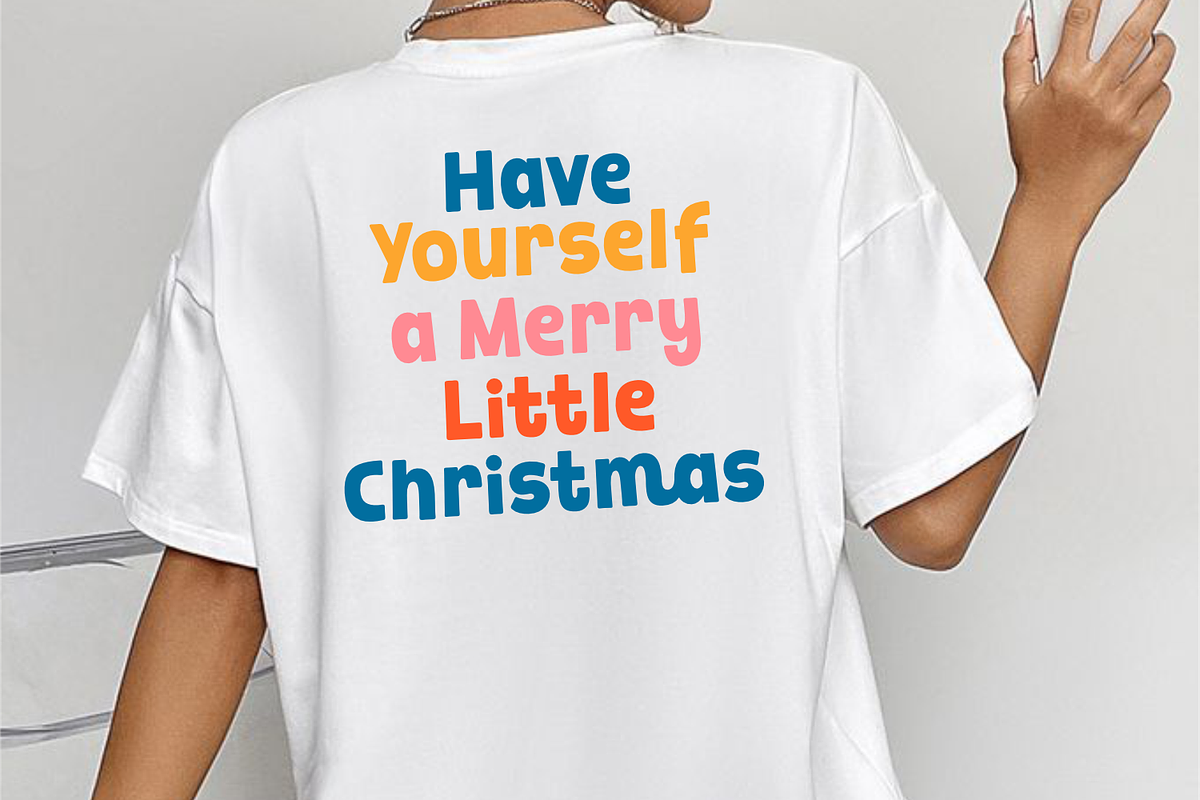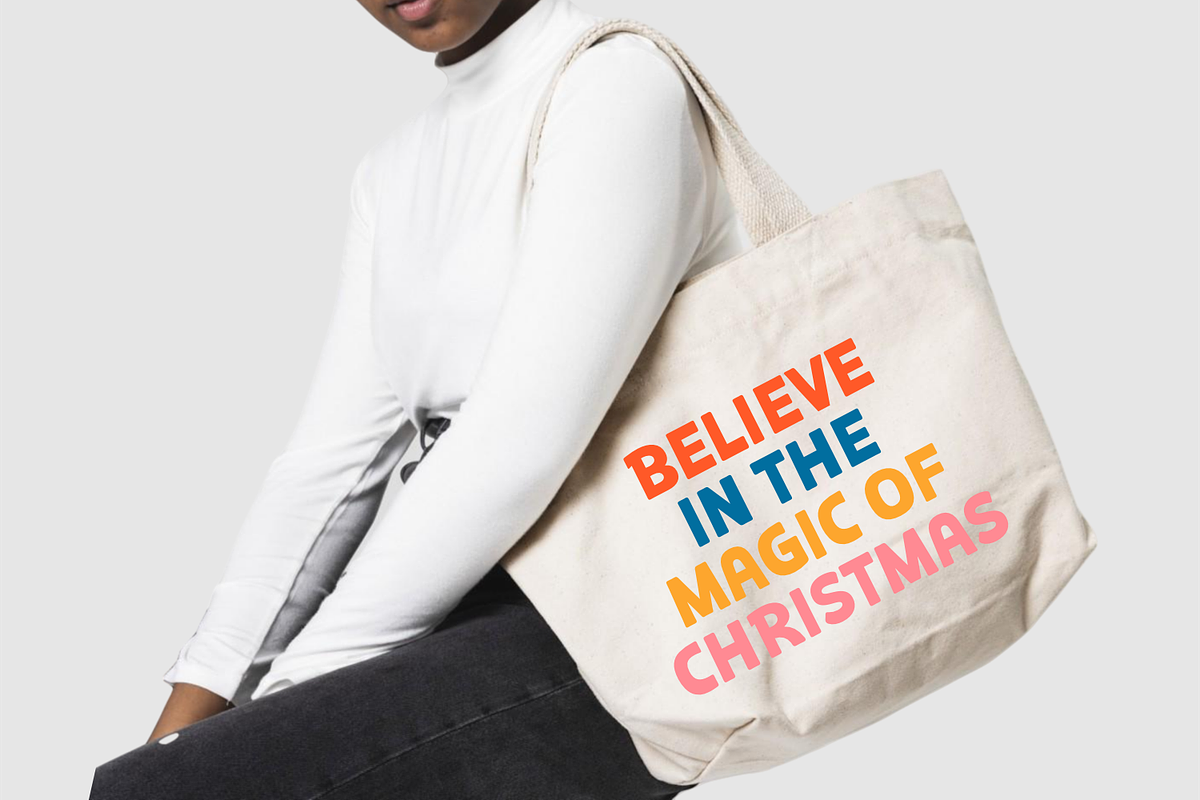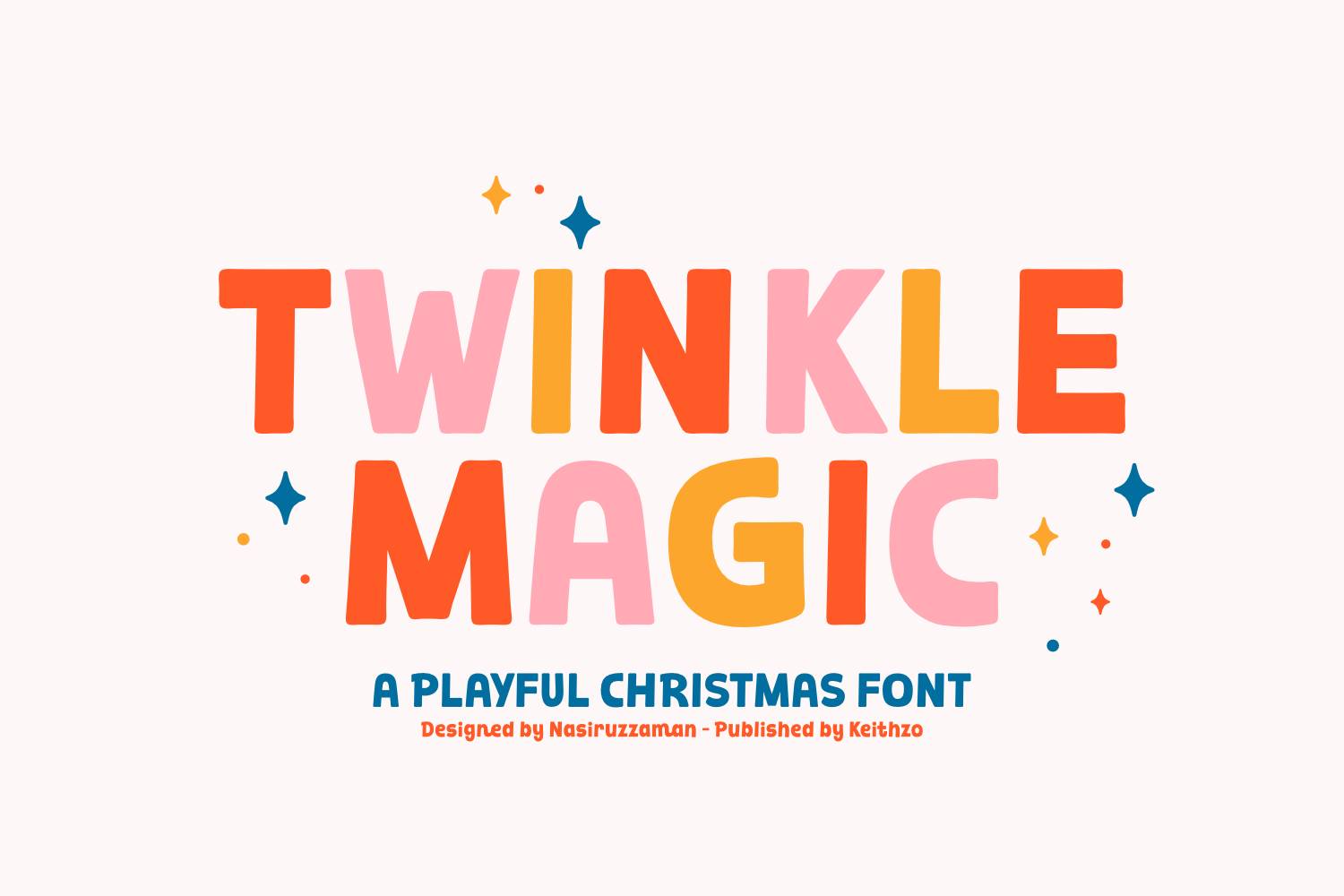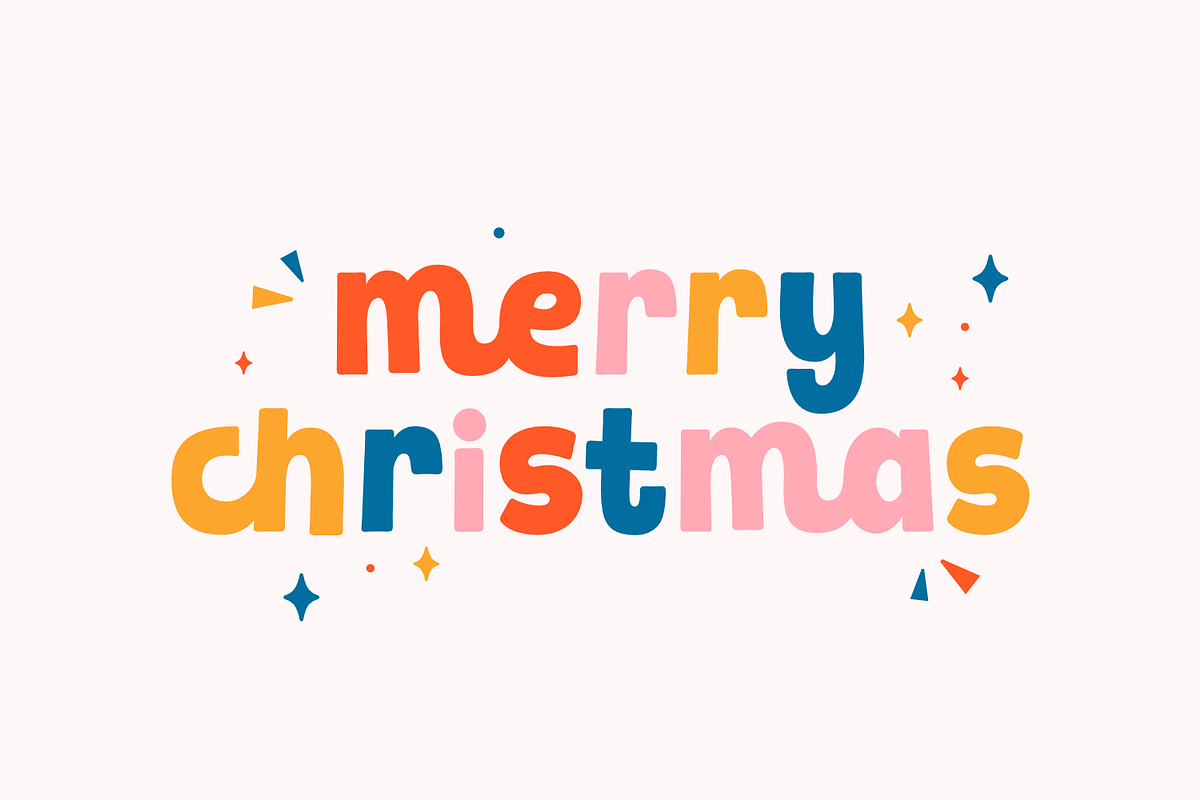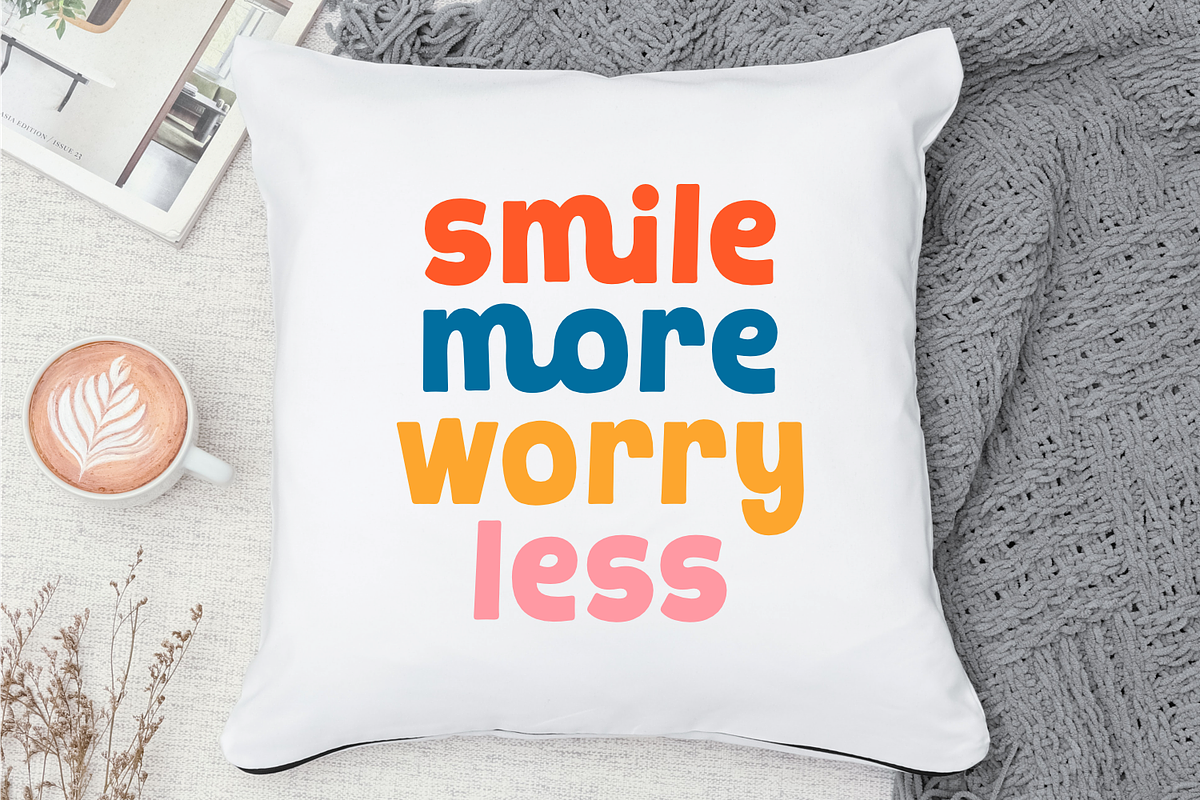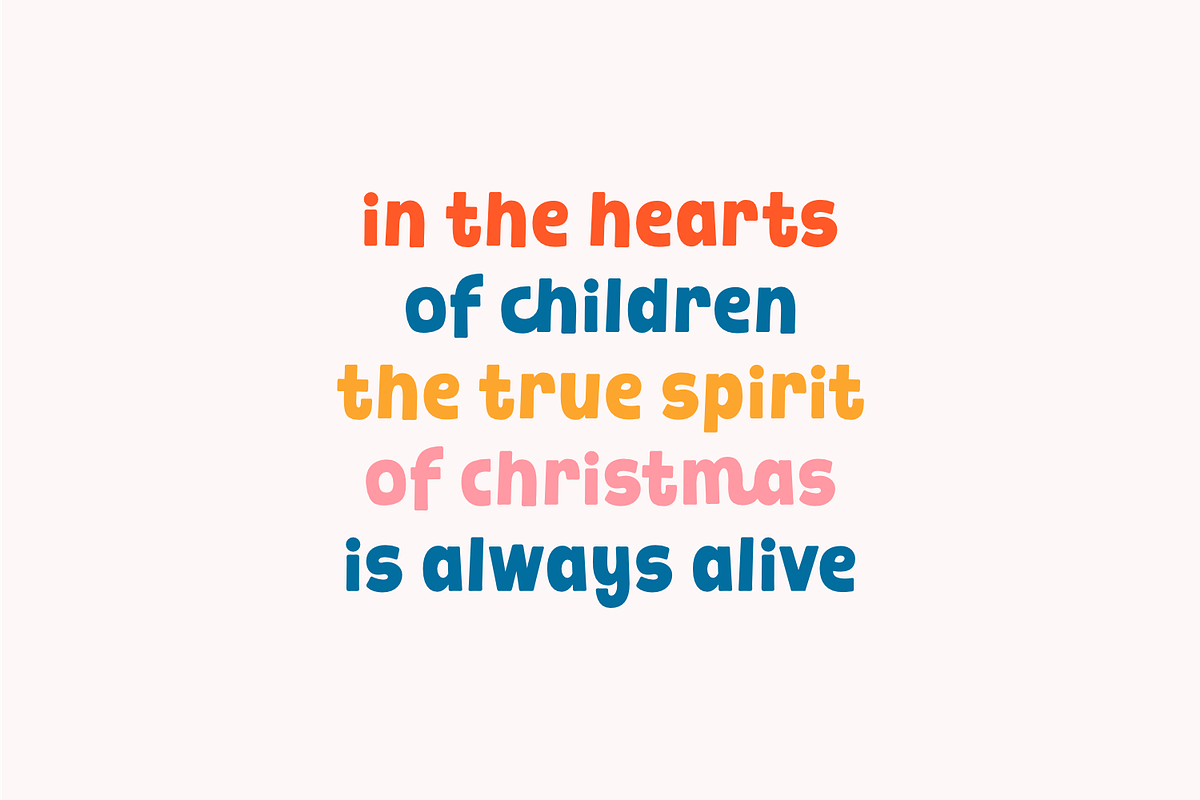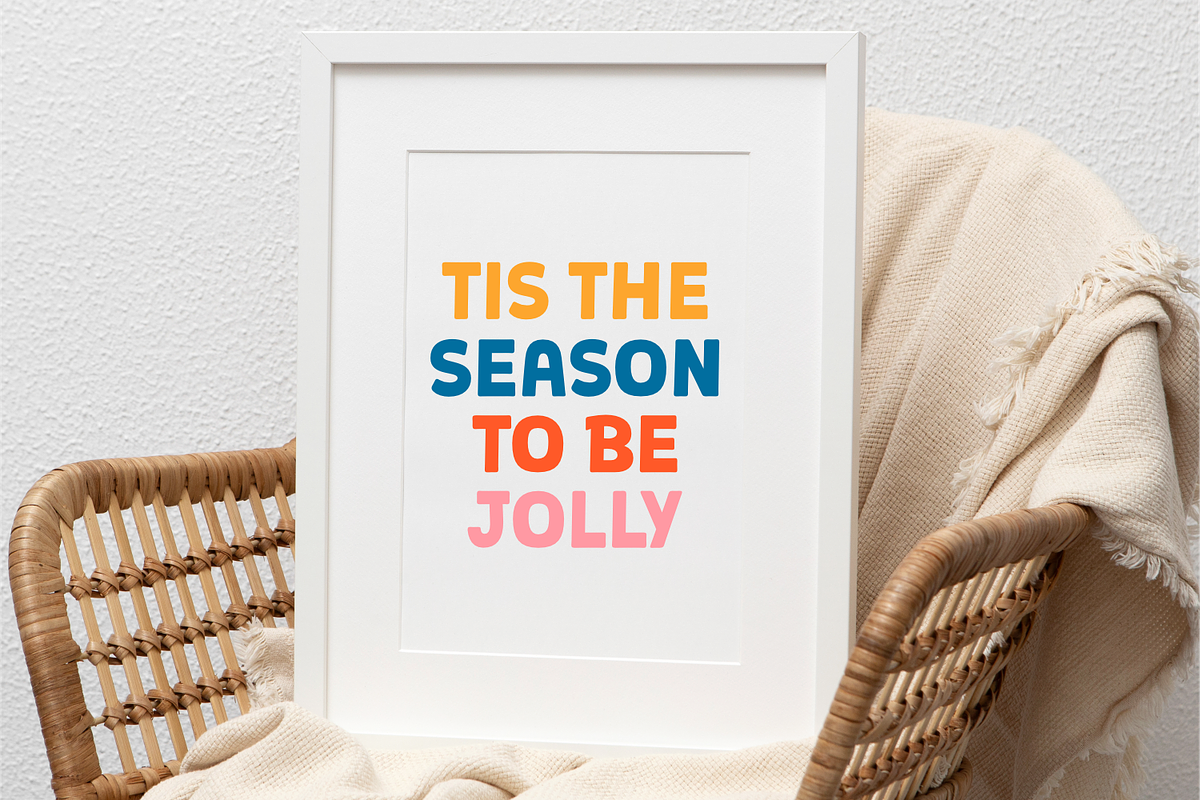
Twinkle Magic - Christmas Font
Introducing Twinkle Magic a delightful, bold and enchanting display font that encapsulates the merry heart of the festive season and beyond. Its vibrant potential for multi-color use and robust, rounded letterforms radiate an immediate sense of fascination and enjoyment, adding a playful touch to any design. The congenial, over-exaggerated weight of the characters creates a powerful visual impact that’s unmissable.
Although created as a Playful Christmas Font. Twinkle Magic’s joyous charm is versatile for all seasons, adorning children’s designs, party invites, inspiring quotes, or fashionable clothing. Twinkle Magic has a strong appeal for branding – it boosts the visual allure on mugs, t-shirts, pillows, posters, and tote bags with its bold and lucid messaging. It is perfect for high-impact headlines or season’s greetings and encapsulates the pure enthusiasm of a child on a holiday morning. Welcome to the world of Twinkle Magic the font that makes every word glitter with charm!